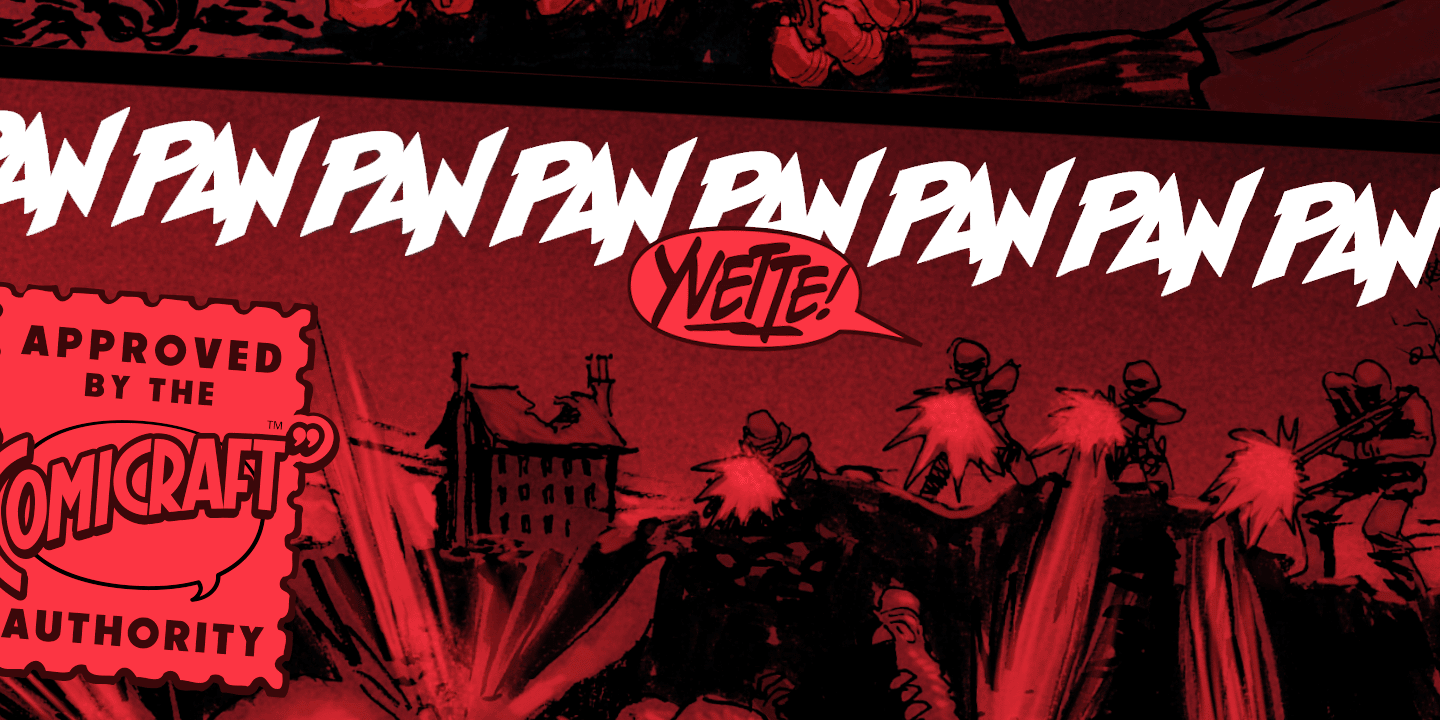
Ratatatat Font is perfect for music festival posters, electronic music album covers, nightclub branding, DJ promotional materials, party event flyers, street art designs, urban fashion labels, and high-energy advertising campaigns.
Ratatatat Font is exciting because it pulses with the rhythmic energy and electronic beats of contemporary music culture, translating the kinetic excitement of dance floors and concert venues into typography that moves and vibrates with visual intensity. This typeface embodies the relentless drive and hypnotic repetition suggested by its onomatopoeic name, creating instant sonic associations through pure visual form.
The Ratatatat Font family includes Regular, Bold, Light, and Stencil variations, along with glitch effects and rhythm-inspired alternates. Each family member maintains the distinctive percussive aesthetic while providing designers with comprehensive options for creating pulsating and dynamic typographic compositions that mirror musical arrangements.
Ratatatat Font distinguishes itself through its ability to visualize sound and rhythm through letterform design. The font's repetitive elements and staccato characteristics create visual patterns that echo musical beats and electronic sequences, making it particularly effective for audio-visual brands seeking to synchronize their typography with their sonic identity. Its energetic personality immediately communicates movement, speed, and contemporary urban culture.
The music industry applications of Ratatatat Font make it exceptionally valuable for artists, venues, and entertainment companies. Record labels, music streaming platforms, concert promoters, and electronic music producers frequently utilize this font to establish their cutting-edge identity while communicating the high-energy experience of their musical offerings. The font's ability to suggest both technical precision and raw energy makes it ideal for bridging underground and mainstream music markets.
Digital design professionals recognize Ratatatat Font Free Download for its excellent screen performance and animation potential. The font's bold structure and clear letterforms ensure excellent readability in digital environments while maintaining visual impact across various screen sizes and resolutions. This technical reliability makes it particularly valuable for music apps, streaming interfaces, and digital marketing campaigns requiring consistent brand recognition.
The urban culture associations of Ratatatat Font extend beyond music to encompass broader street culture and youth lifestyle aesthetics. Its edgy character and contemporary appeal naturally complement street fashion, urban sports, gaming culture, and youth-oriented consumer brands. This cultural authenticity makes it particularly effective for brands seeking credible connections with urban demographics and street culture movements.
Contemporary entertainment marketing demands typography that can cut through visual noise and create immediate emotional connections with target audiences. Ratatatat Font delivers this impact through its bold presence and cultural resonance, making it suitable for both grassroots music promotion and major entertainment campaigns. Whether applied to concert merchandise, digital platforms, or traditional advertising, the font maintains its energetic character while meeting professional standards.